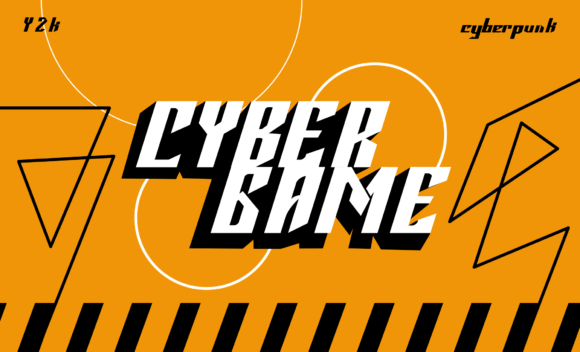
The Birth of a New Era in Typography
Have you ever stared at a blank canvas, feeling the weight of creativity on your shoulders? The blank page stares back, waiting for the spark that will set your project ablaze. That’s exactly where the magic happens – in the uncharted territories of typography. It’s here that the Cybergame Font comes into play, a futuristic style that shatters the status quo and unleashes a new wave of possibilities.
With its bold, fearless, and uniquely designed glyphs, the Cybergame Font is more than just a font – it’s a statement. It’s a declaration of intent, a beacon that shines bright in the darkness of generic designs. For designers, the Cybergame Font offers an unparalleled opportunity to breathe life into their projects, to infuse them with an unmistakable touch that sets them apart from the crowd.
Cybergame Font Key Features
- Font Style: A futuristic, high-tech sans-serif font designed for gaming and technology-related applications.
- Unique Characteristics: Features a bold, geometric design with clean lines, making it easily readable even at high speeds and resolutions.
Cybergame Font Review
I’ve had the chance to work with the Cybergame Font, and I must say it’s a unique and intriguing choice for digital projects.
- Futuristic feel: The font’s sleek lines and angular shapes give it a distinctly futuristic vibe that’s perfect for sci-fi, gaming, or tech-related projects.
- High legibility: Despite its bold and condensed nature, the font remains easy to read, even at small font sizes.
- Customization options: The font family comes with a range of weights, styles, and special characters, allowing for a high degree of customization.
- Limited readability in certain contexts: While the font is generally legible, it may struggle in situations where text needs to be read quickly or at a distance.
- Lack of subtlety: The font’s bold, futuristic aesthetic may not be suitable for all types of projects, particularly those that require a more understated or classic look.
The Cybergame Font is a bold, eye-catching choice that’s well-suited to projects with a futuristic or high-tech theme. While it may not be the best choice for every project, it’s definitely worth considering for those that require a unique and attention-grabbing aesthetic.
Cybergame Font: A Practical Application Guide
Some tips for getting the most out of Cybergame Font include:
– Using it for futuristic and technological themes.
– Combining it with neon colors for a bold and eye-catching effect.
– Using it for headings and titles to add a touch of sophistication.
Cybergame Font is perfect for designing futuristic websites, video games, and other digital products.
Alternatives to Cybergame Font
1. Arial Black
Arial Black is a sans-serif font designed by Robin Nicholas and Patricia Saunders. It’s a bold, condensed font that’s ideal for use in titles, headings, and other text where a strong visual impact is desired. In comparison to Cybergame Font, Arial Black has a more subtle, professional feel, making it a good choice for designs that require a touch of sophistication.
2. Impact
Impact is a sans-serif font designed by Geoffrey Lee. It’s a highly condensed font with a bold, geometric feel that’s often used for titles, headings, and other display text. While Impact shares some similarities with Cybergame Font in terms of its bold, condensed design, it has a more aggressive, attention-grabbing feel that’s better suited for use in designs where a strong visual impact is needed.